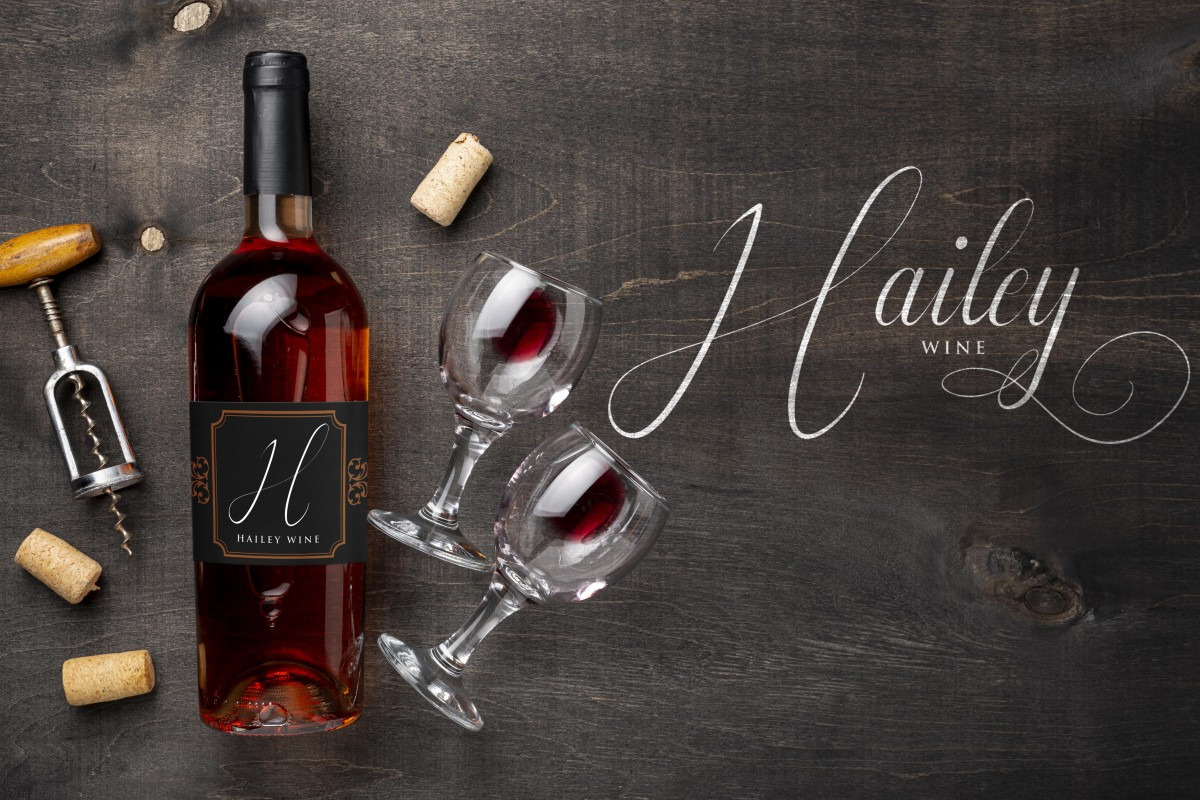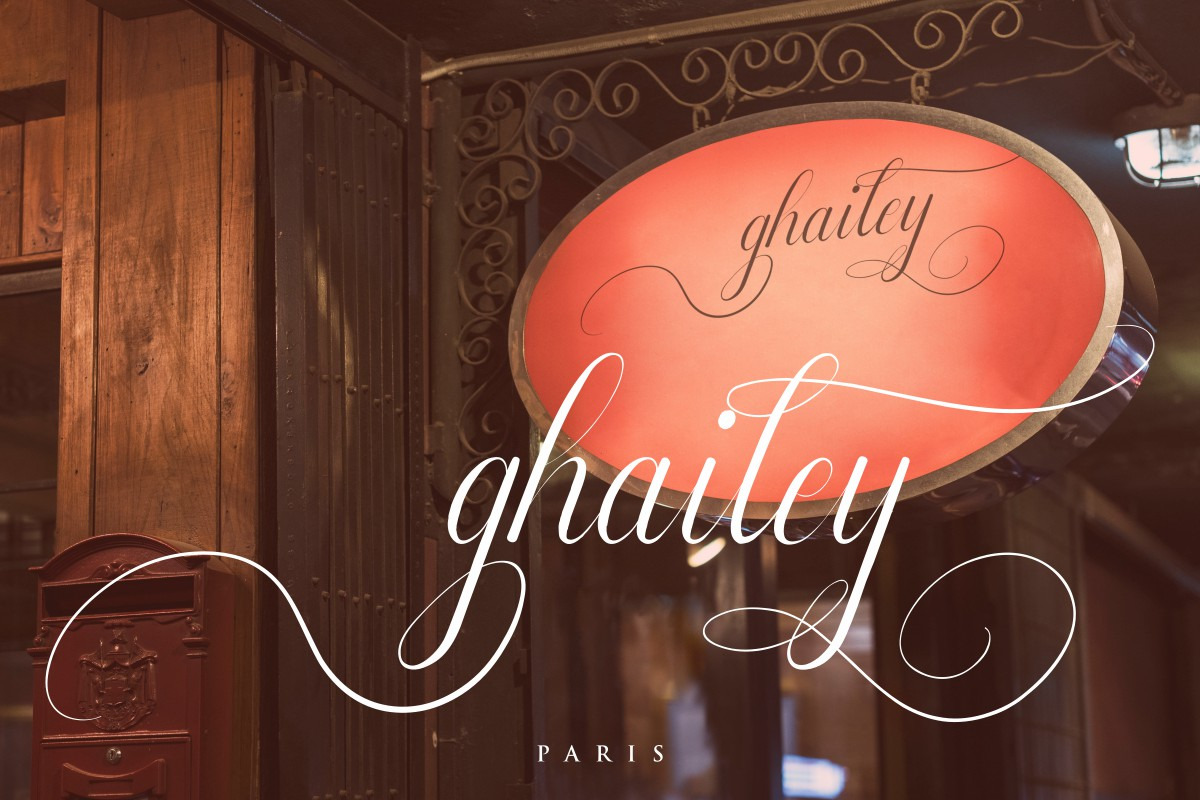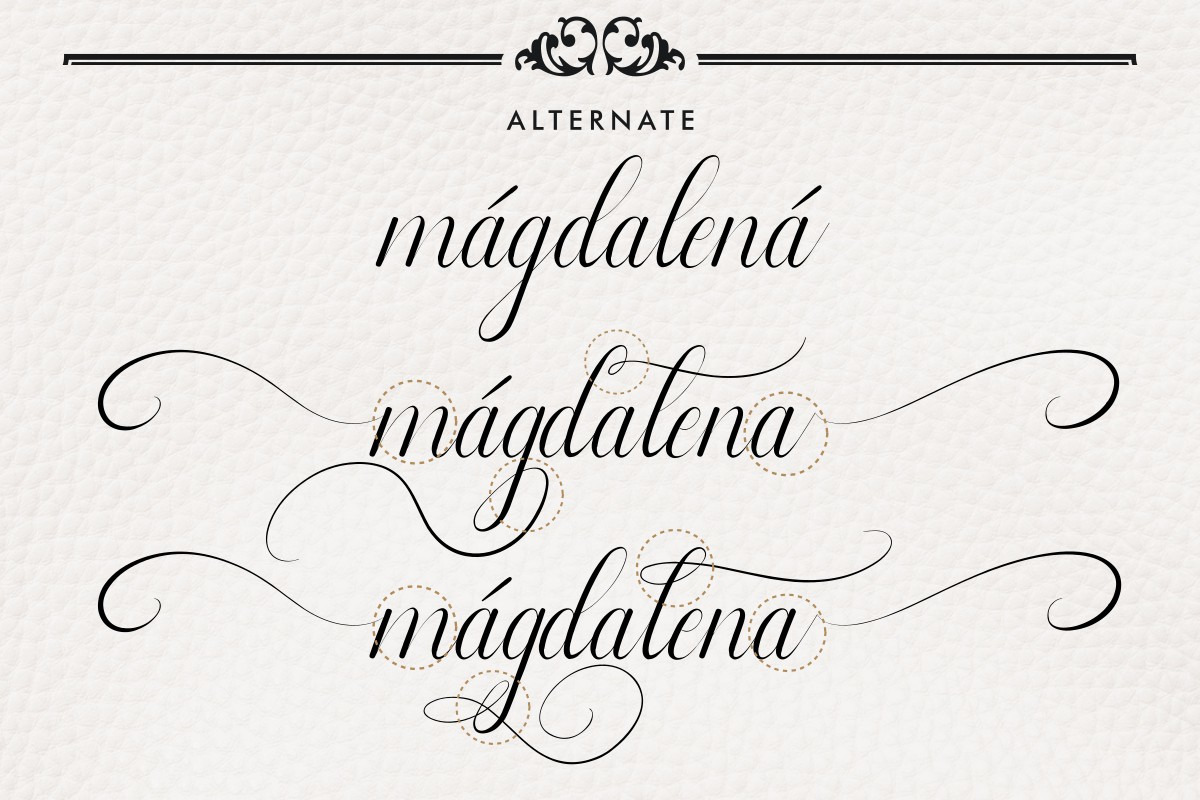
Leathering Calligraphy Font
Leathering Font is a Calligraphy script font. The style of this font are elegant, luxury, glamour, modern and sophisticated brush pen.